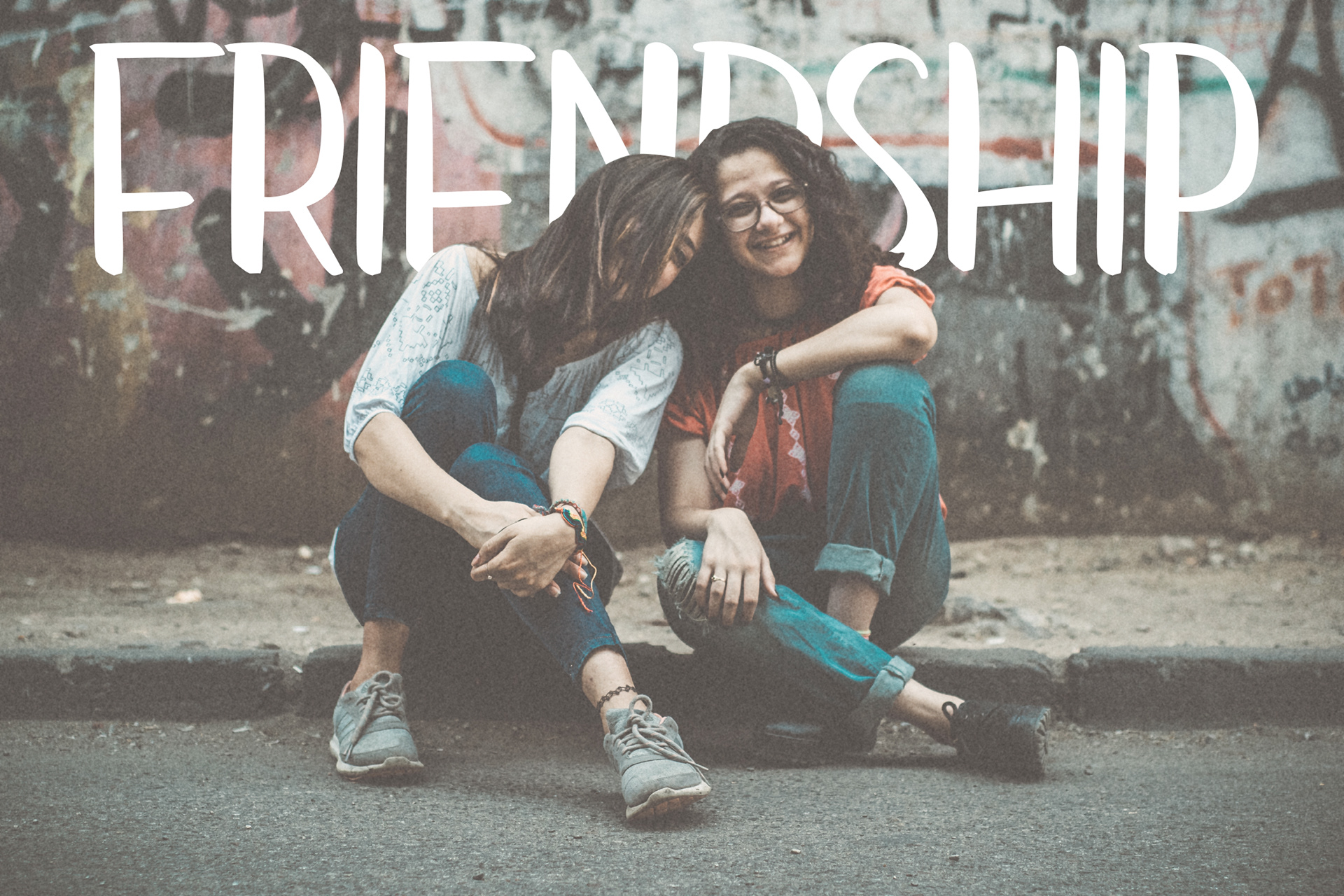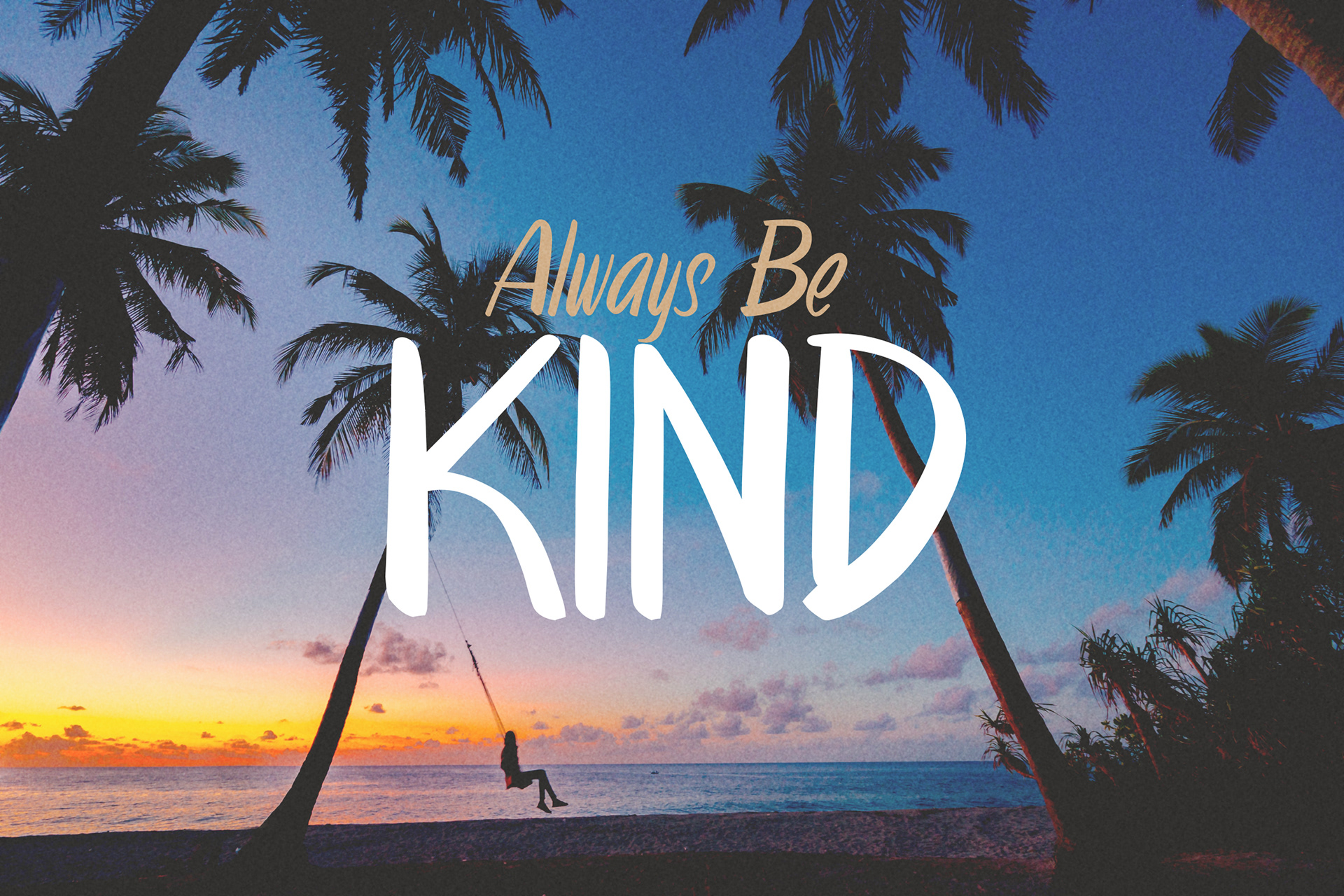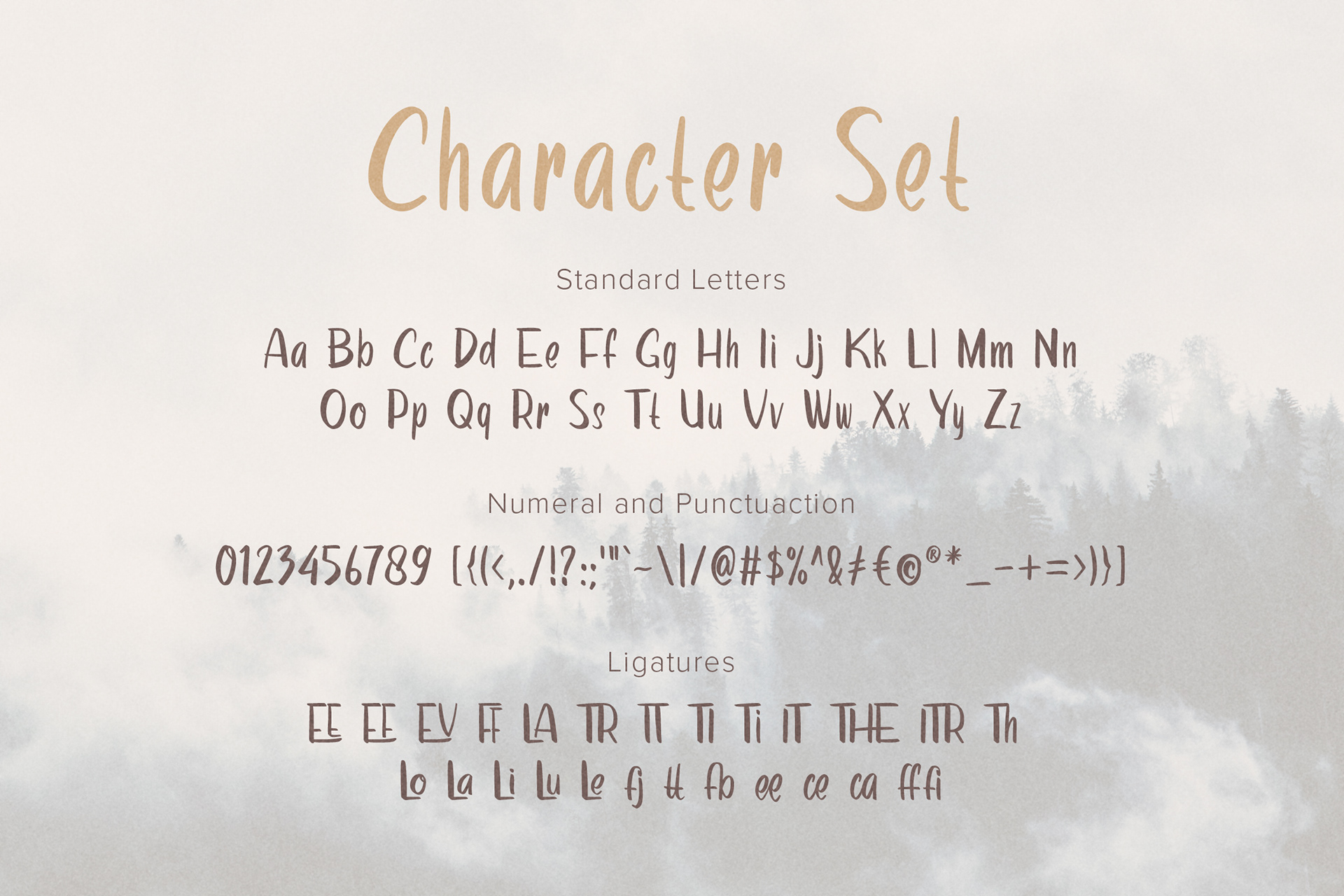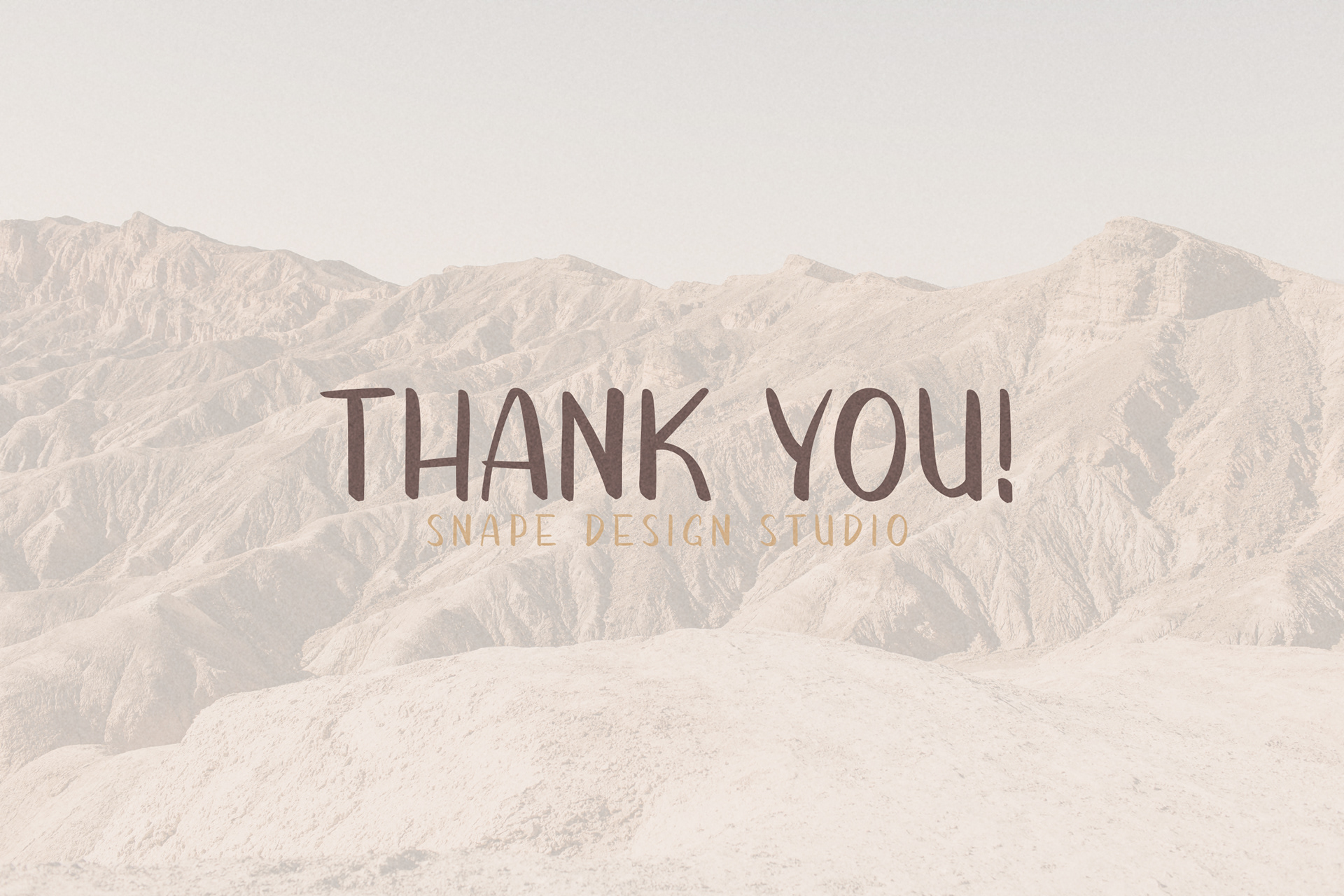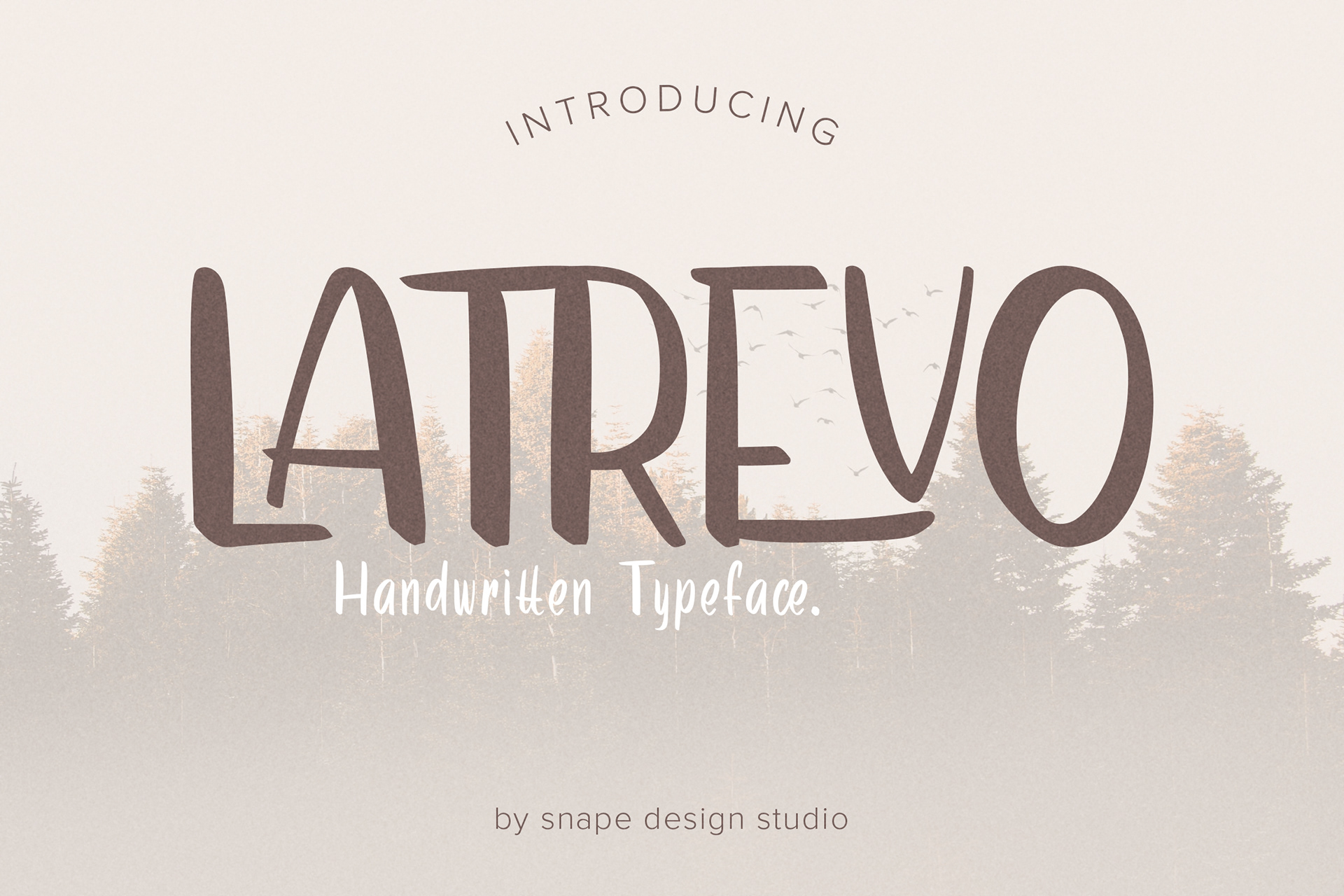
Latrevo is a stylish and brushed handwritten font. It is suitable for any branding, product packaging, invitation, quote, t-shirt, label, poster, logo that you wish to develop. Add this font to your creative ideas and notice how it will make them stand out!